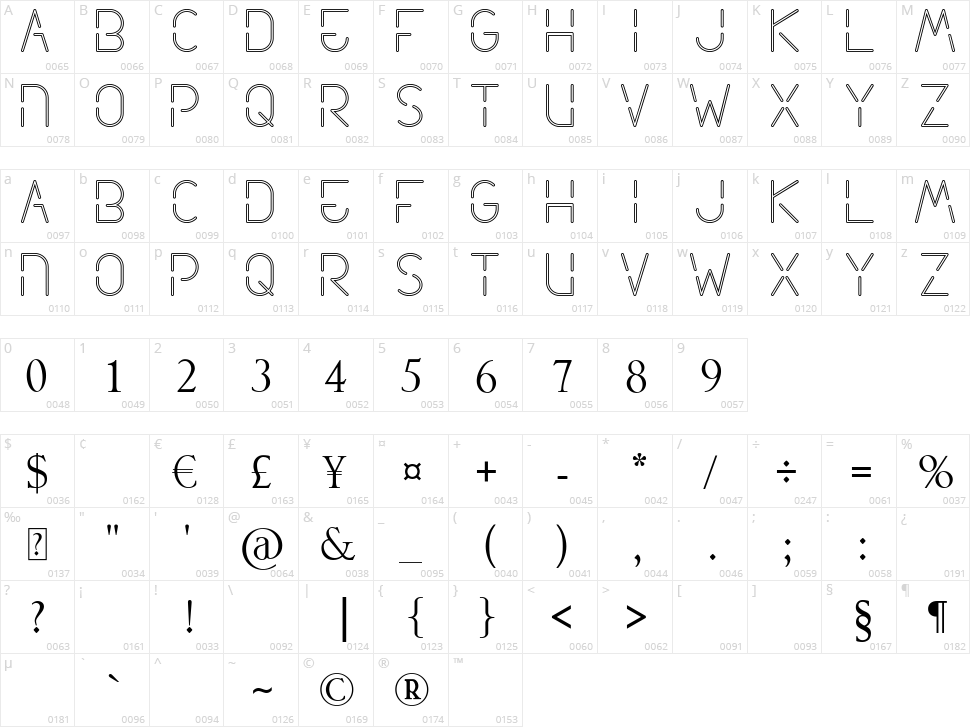
Neon Future
Neon Future is a new modern & fresh display font with a neon light style with a futuristic touch makes this font look elegant, stylish, and perfect for any awesome project that needs a futuristic display taste.